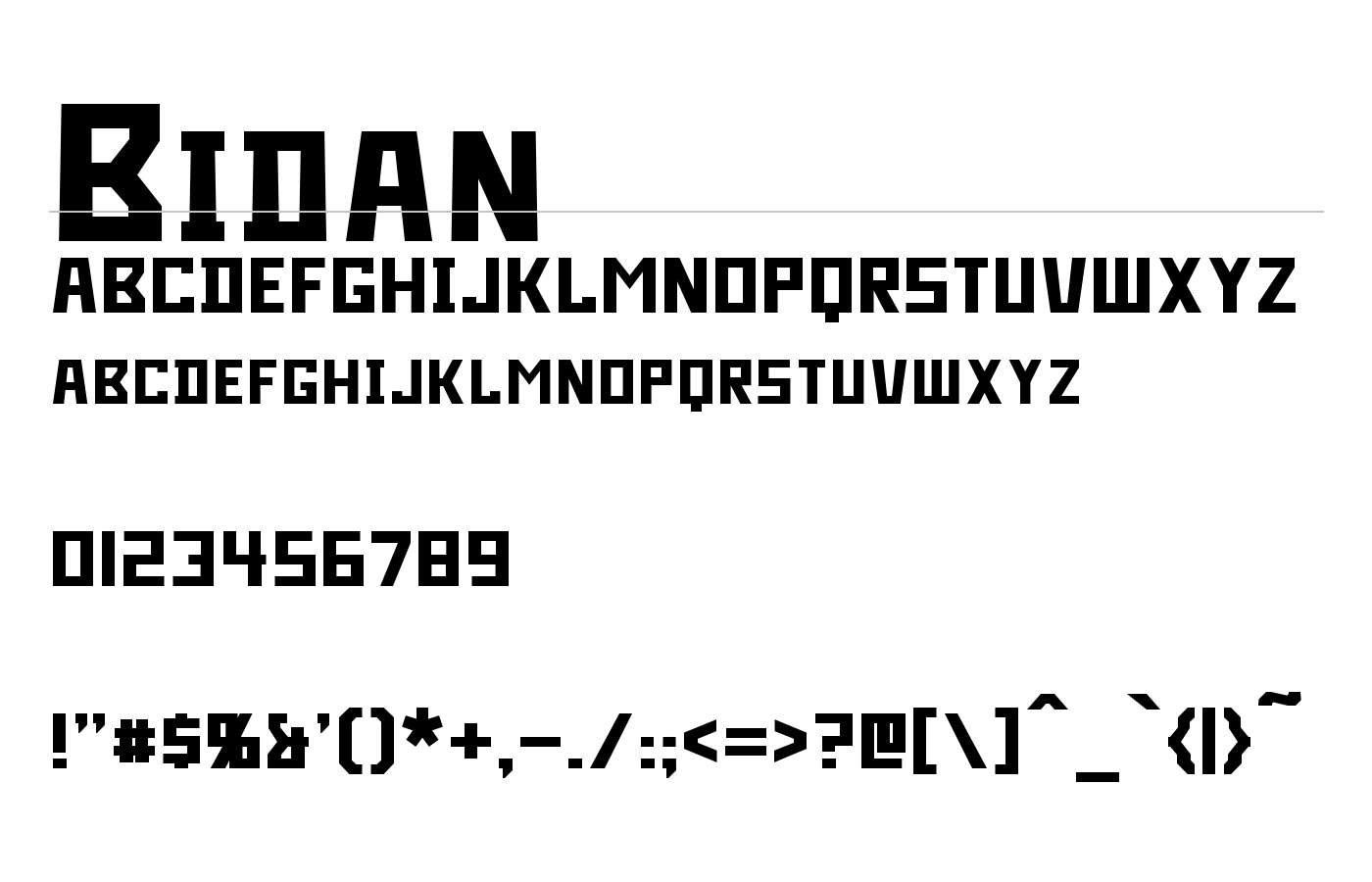
Bidan is a bold, condensed sans serif font that combines a geometric, blocky structure with sharp, angular strokes, giving it a strong and industrial feel. Its uniform weight and tight spacing make it ideal for impactful headlines, logos, and branding that demand attention with a modern and confident edge. This font works especially well in designs needing a robust, assertive style with a contemporary, slightly aggressive personality.
Bidan Font
About Bidan Font